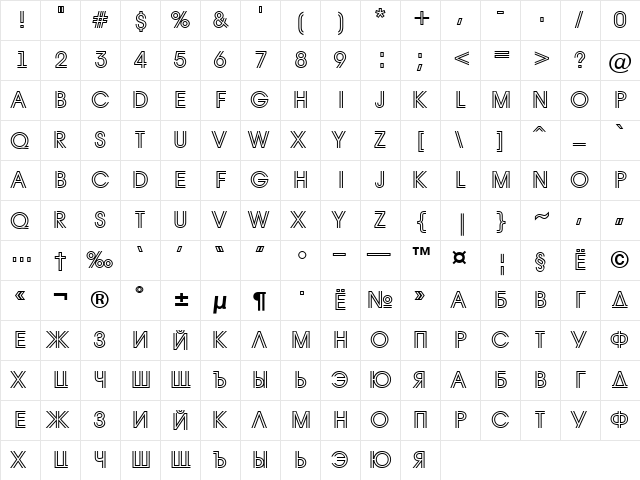
a_AvanteTitulInline Regular
Design Context for a_AvanteTitulInline Typeface
a_AvanteTitulInline is built around its visual character rather than neutral utility — its distinctive forms are designed to make an impression at display sizes.
Font Pairing: Pair with a clean neutral sans-serif for body copy to let a_AvanteTitulInline's character lead without overwhelming the composition.
Pro Tip: Treat a_AvanteTitulInline as the centrepiece of your typographic hierarchy. One strong heading set in a decorative face can carry an entire layout.